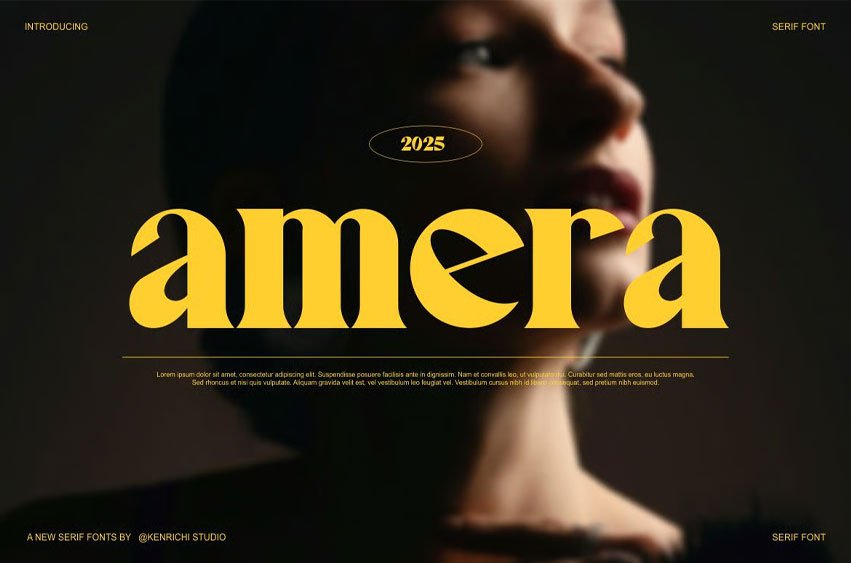
Amera Font
Amera Font is a modern and authentic font. Perfect for both professional and branding needs of a product. This font is suitable for any branding project like quotes, logo, blog header, poster, branding, letter, invitation, stationery, etc.
Designed as a versatile and flexible tool that can be used on a range of projects and media.
• outstanding in a wide range of contexts.